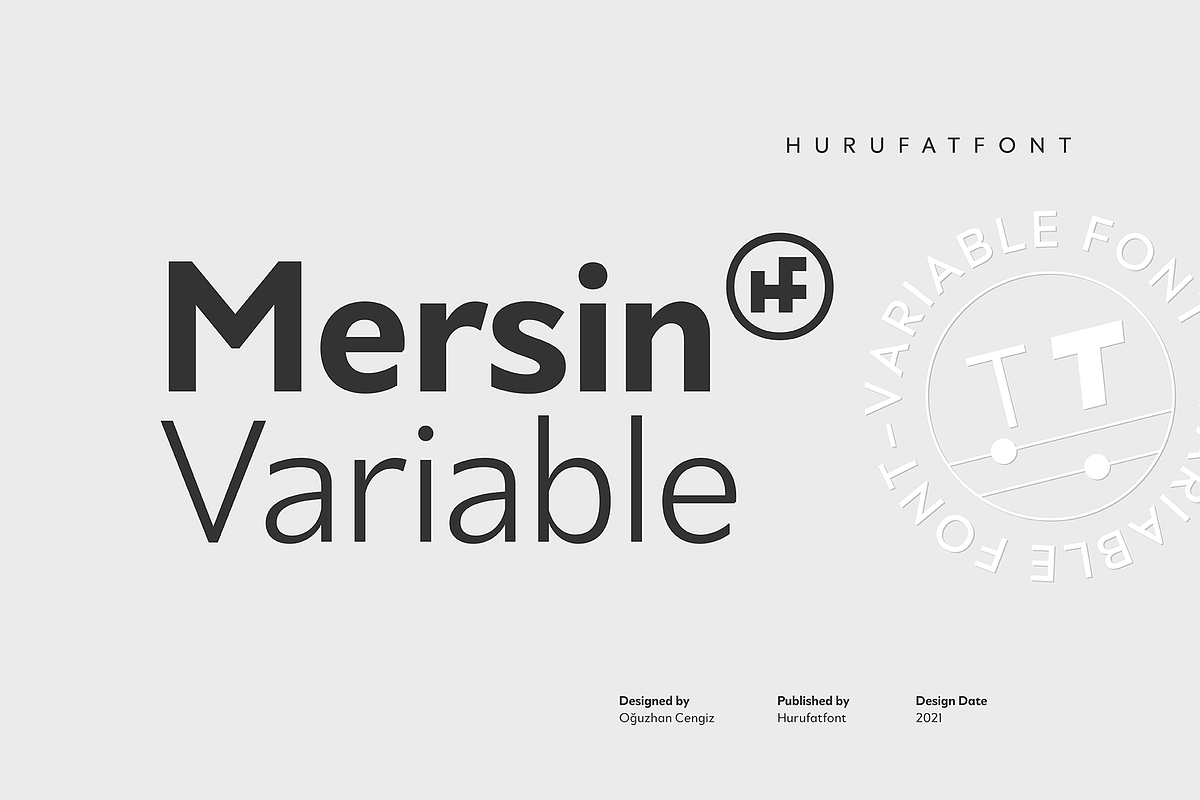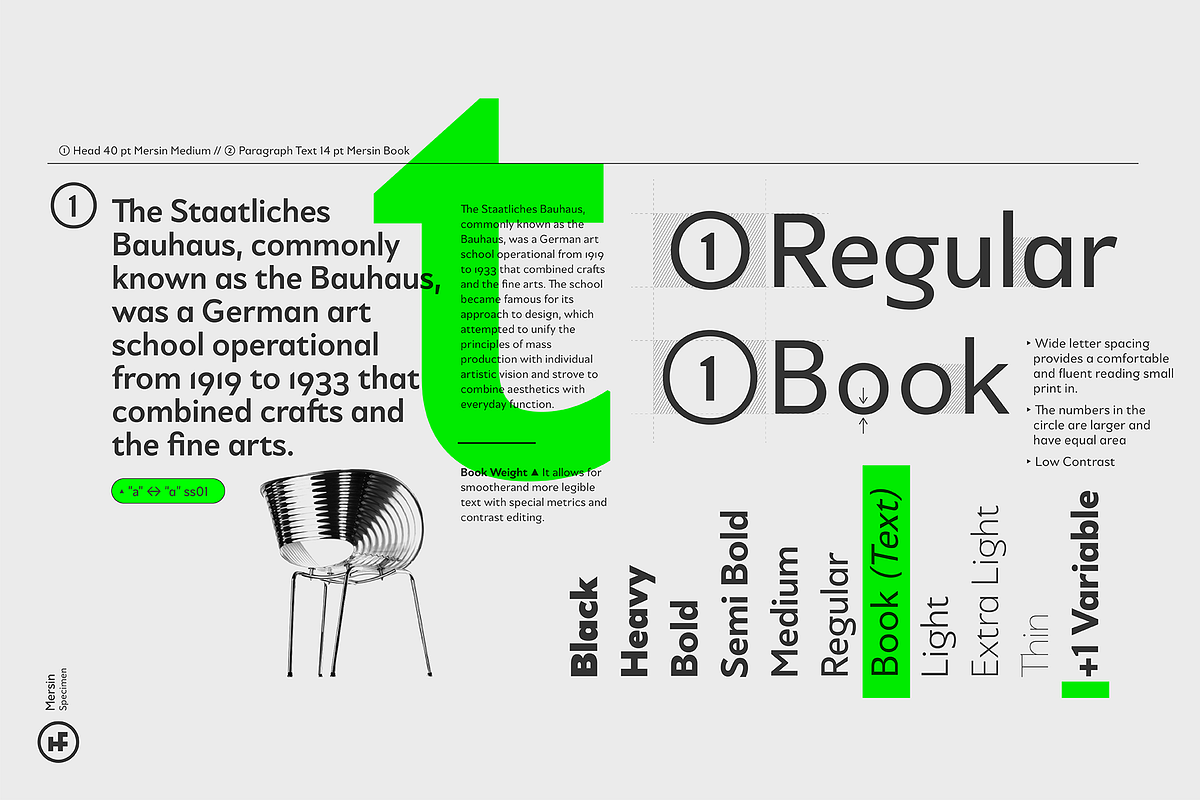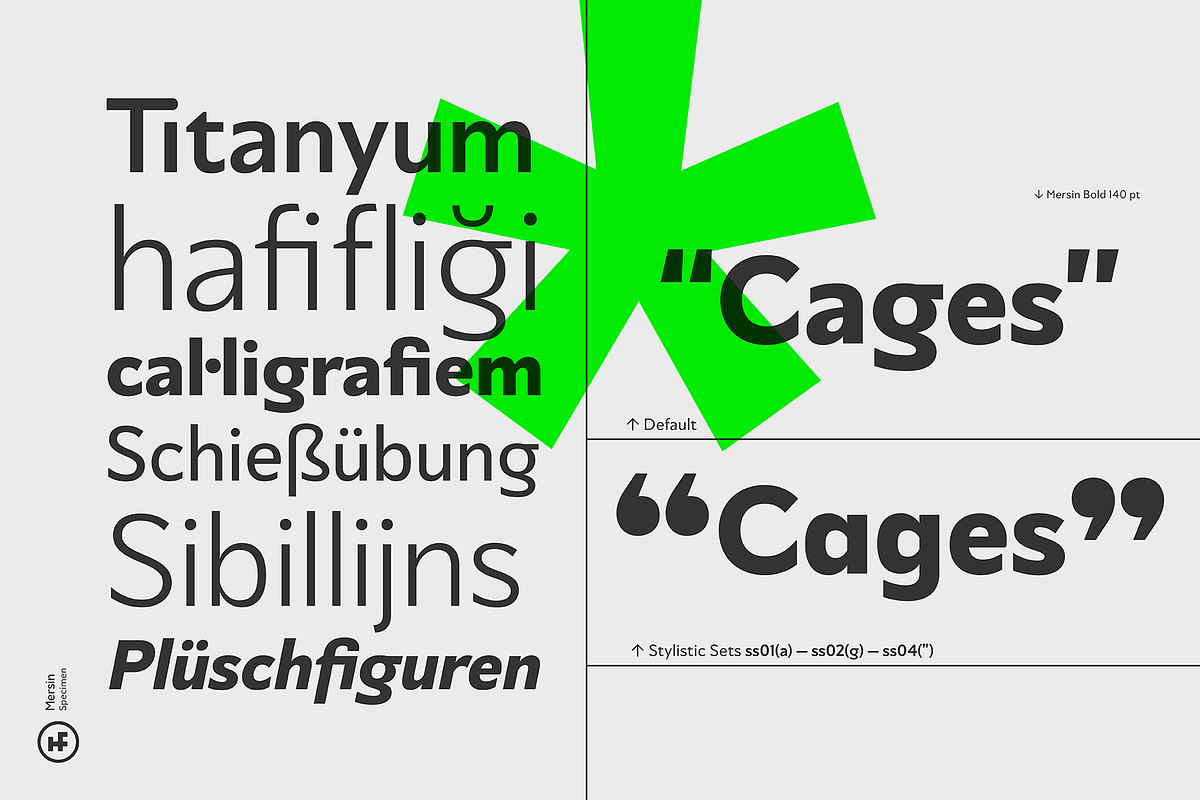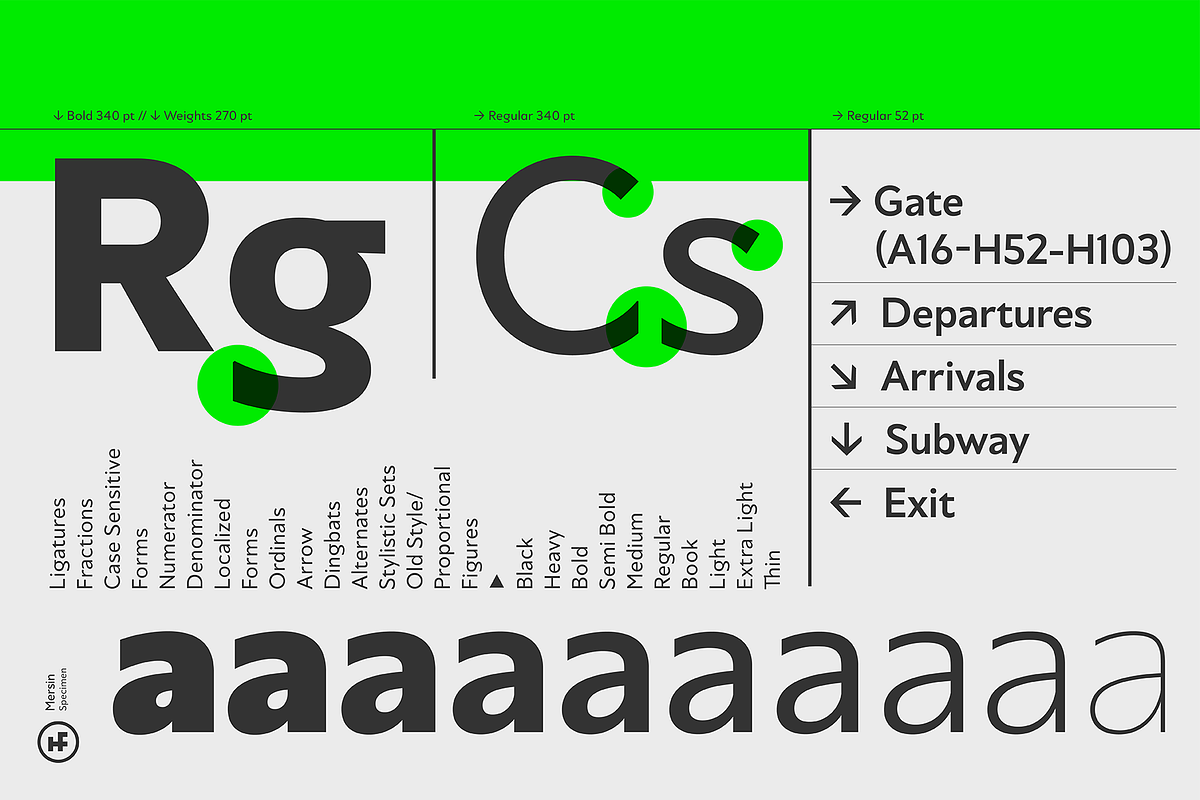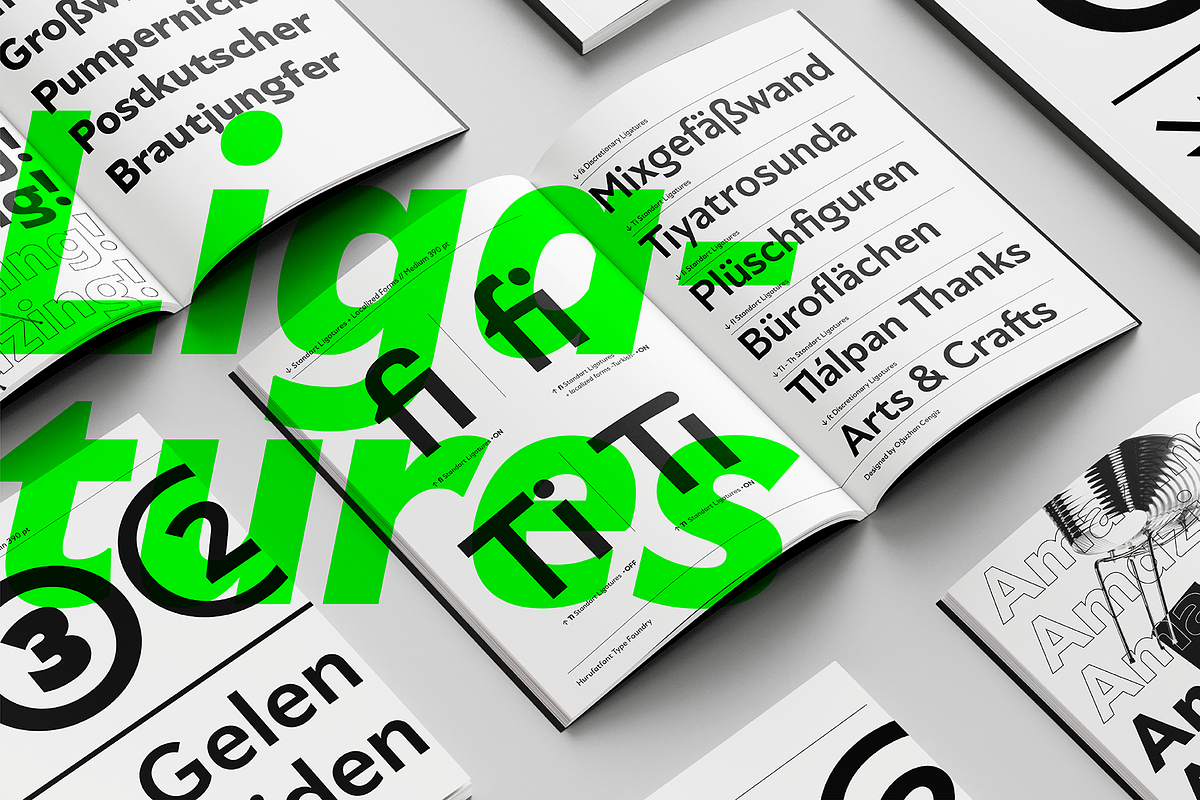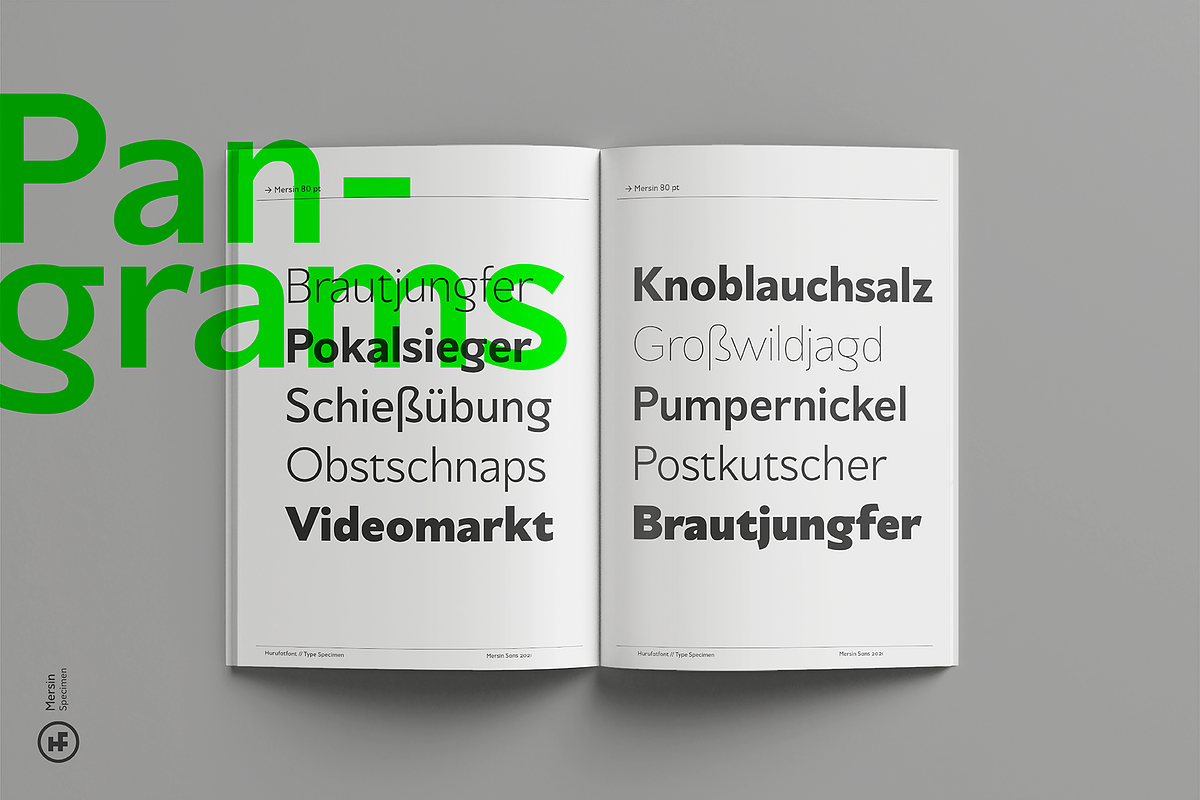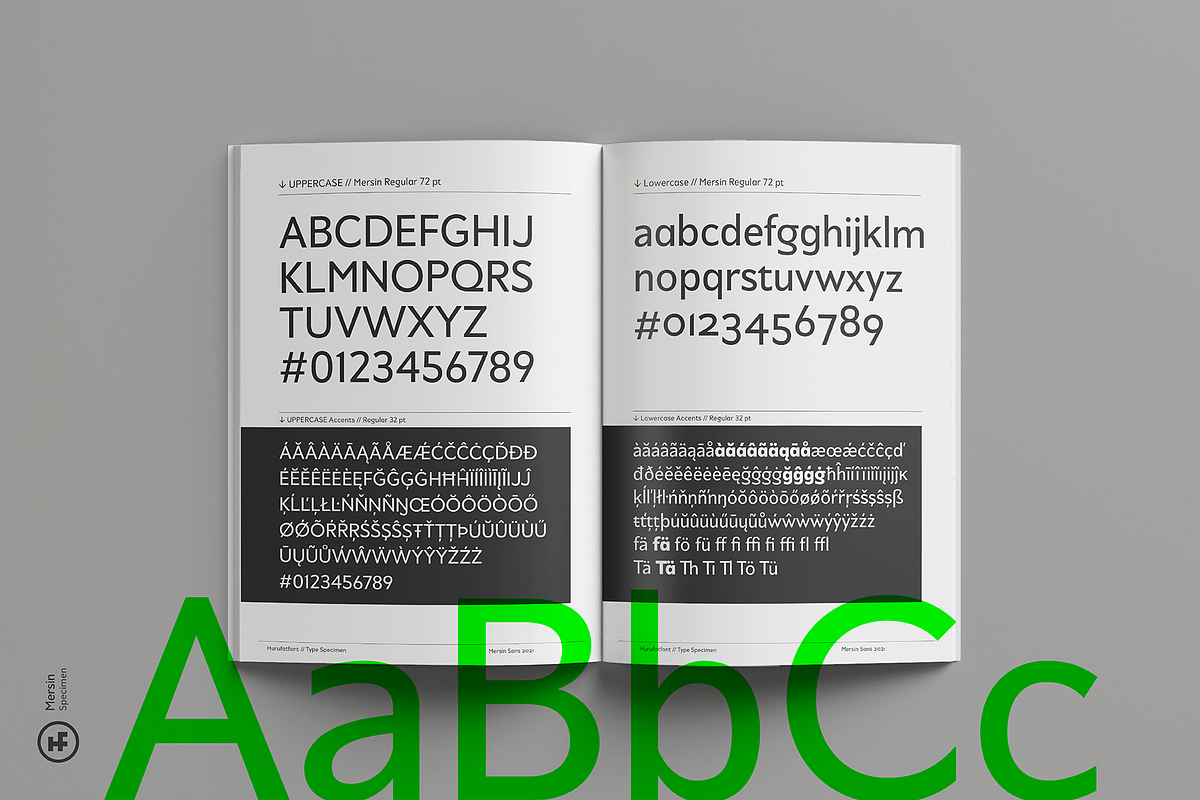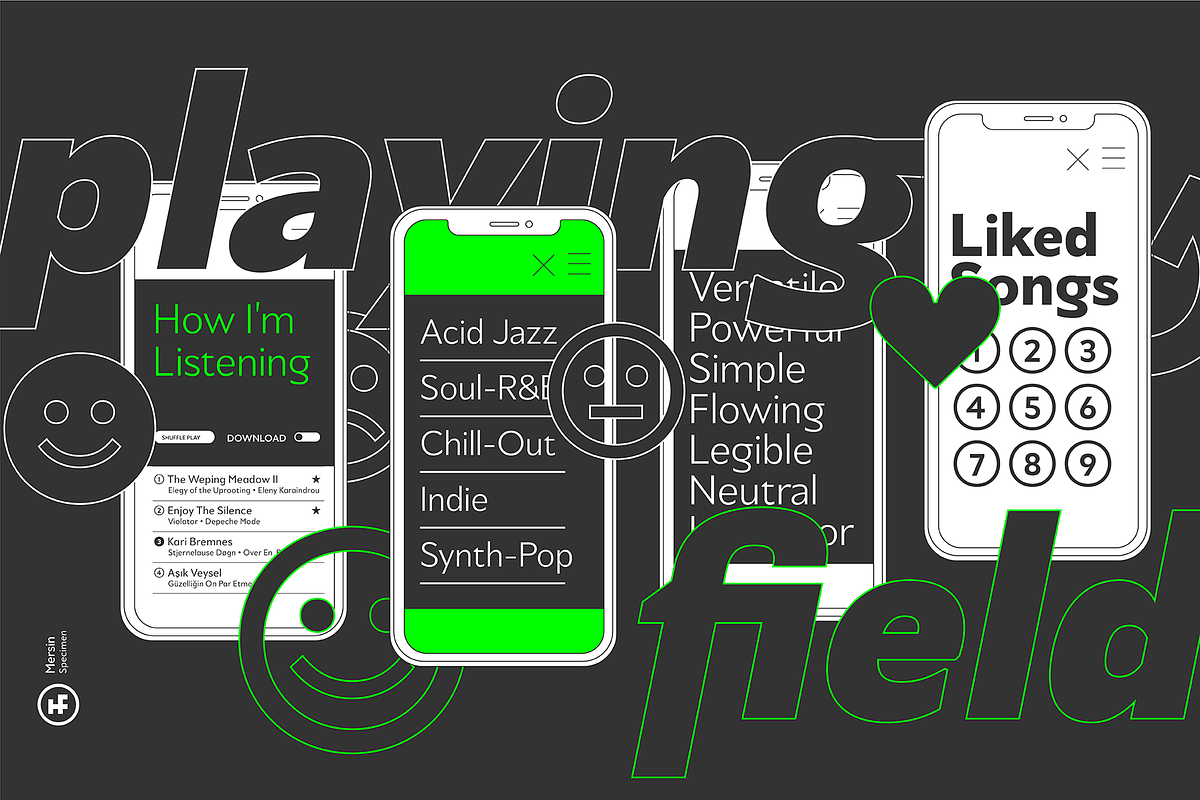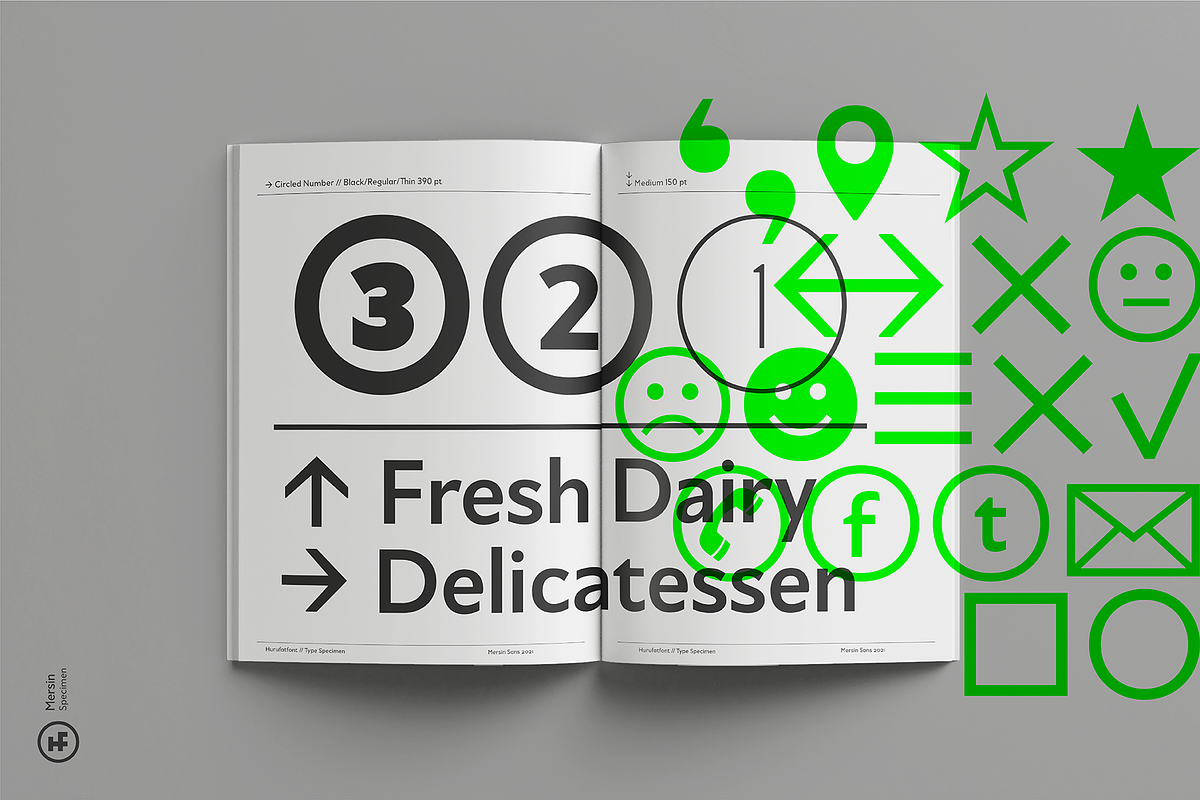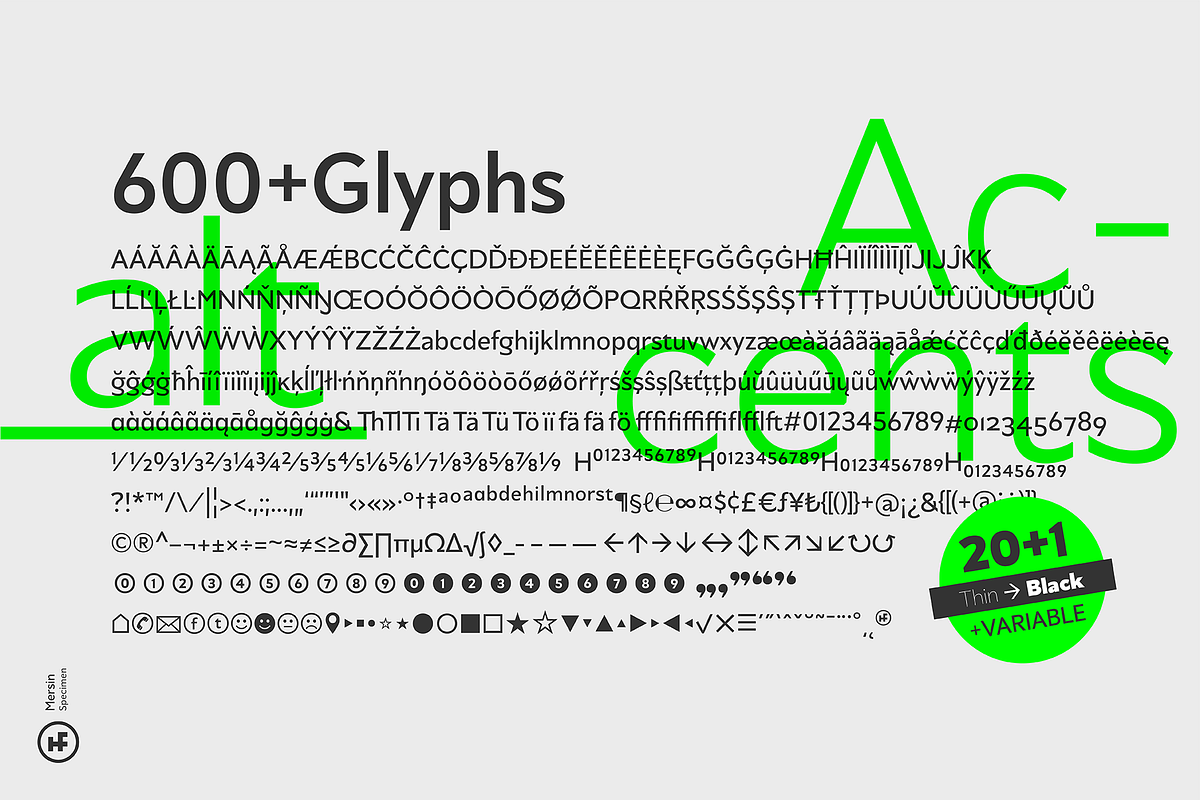
Mersin Variable
Mersin is a modern sans serif font family. The asymmetrical structure of the beginning and ending shapes of letters such as "Cc, Ss" is its most distinguishing feature. Mersin has a total of 20 fonts, includings 10 weights and their appropriate italics. With its 2-axis (Weight & Italic) Variable Version, Mersin offers the advantage of using a very rich weight between 100-900. It includes detailed ligatures such as "Th, Tl, Ti, Tä, Tü, Tö, iï, fä, fä, fö fü" for very wide and different accents.
“Mersin Book” and “Mersin Book Italic” are specially designed for body texts and small fonts usages. Ideal for corporate identity, posters, brochures, guidance signages and all other kinds of graphic design works.